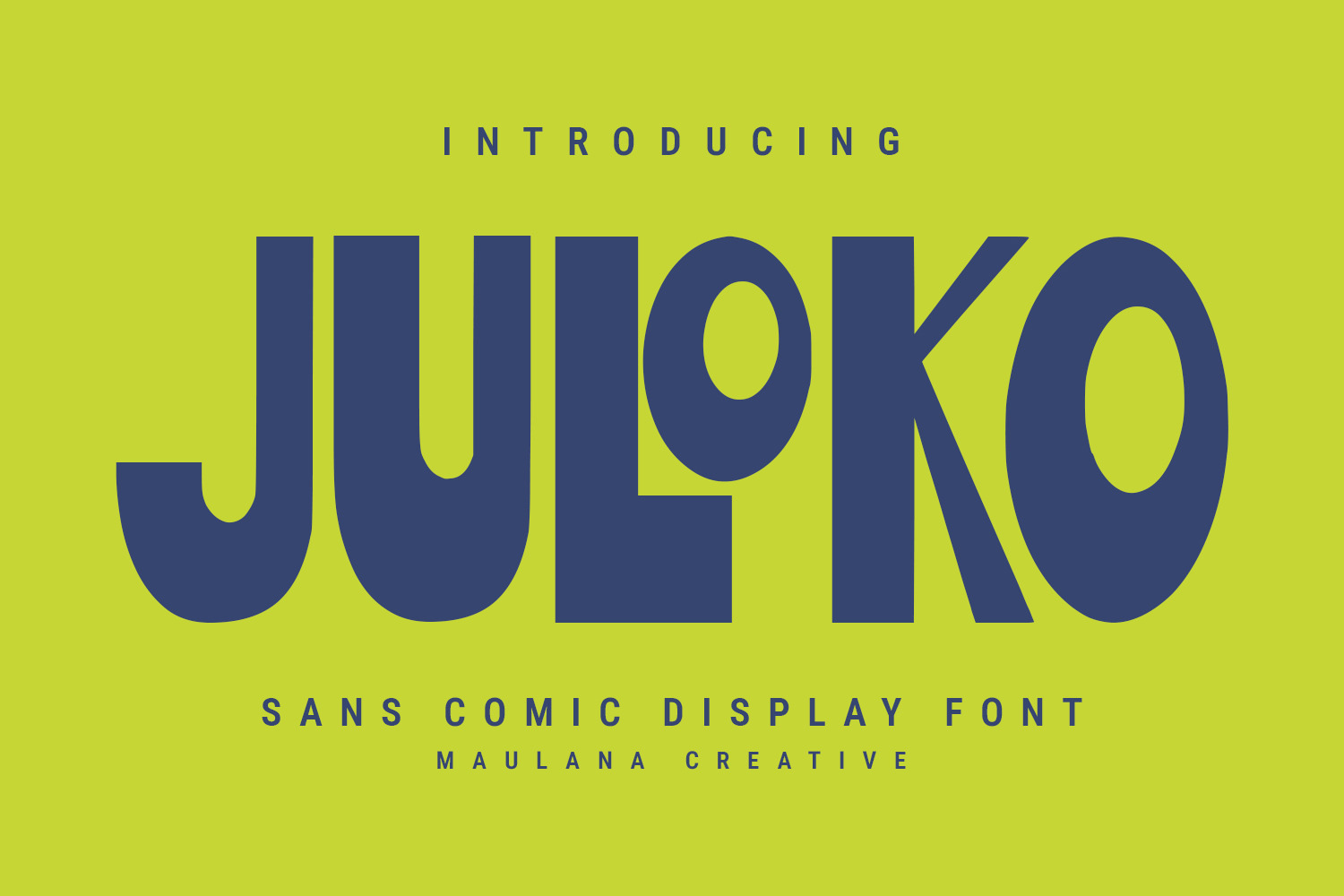
Juloko Sans Serif Display Font
Juloko is a sans display font. With bold stroke, fun character with a bit of ligatures. To give you an extra creative work. Juloko font support multilingual more than 100+ language. This font is good for logo design, Social media, Movie Titles, Books Titles, a short text even a long text letter and good for your secondary text font with sans or serif. Make a stunning work with Juloko font.